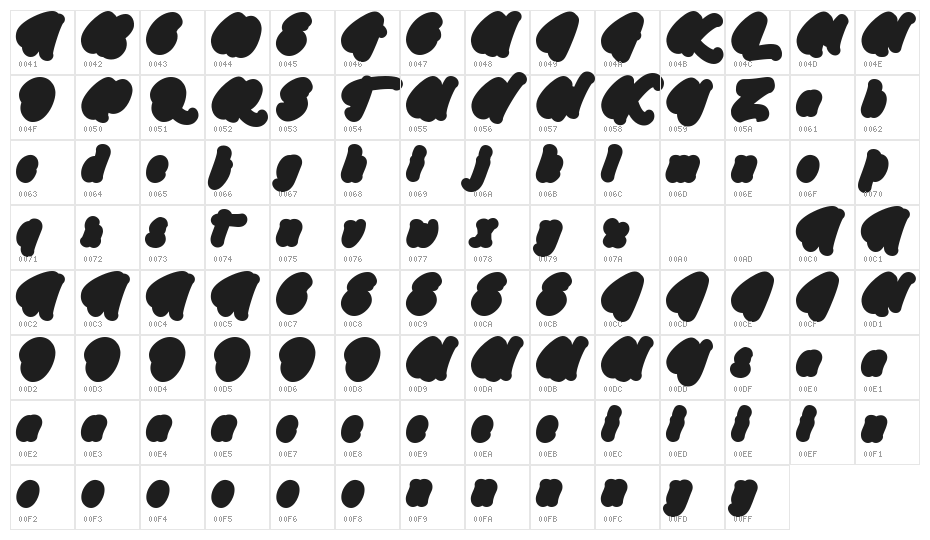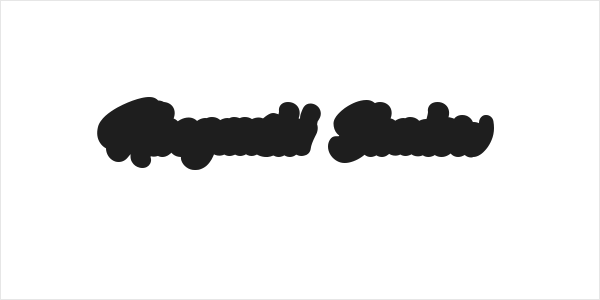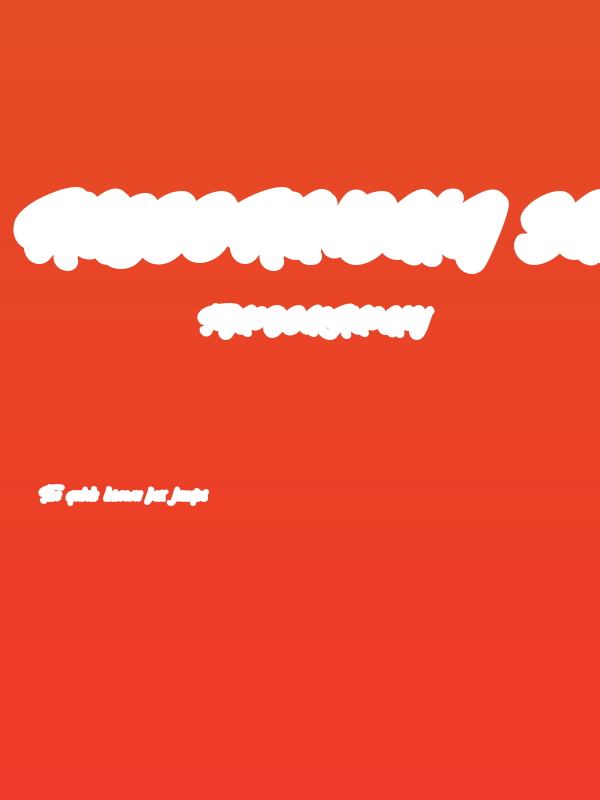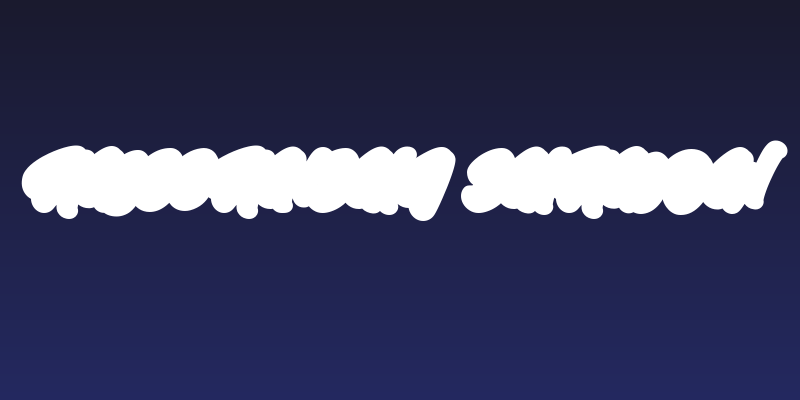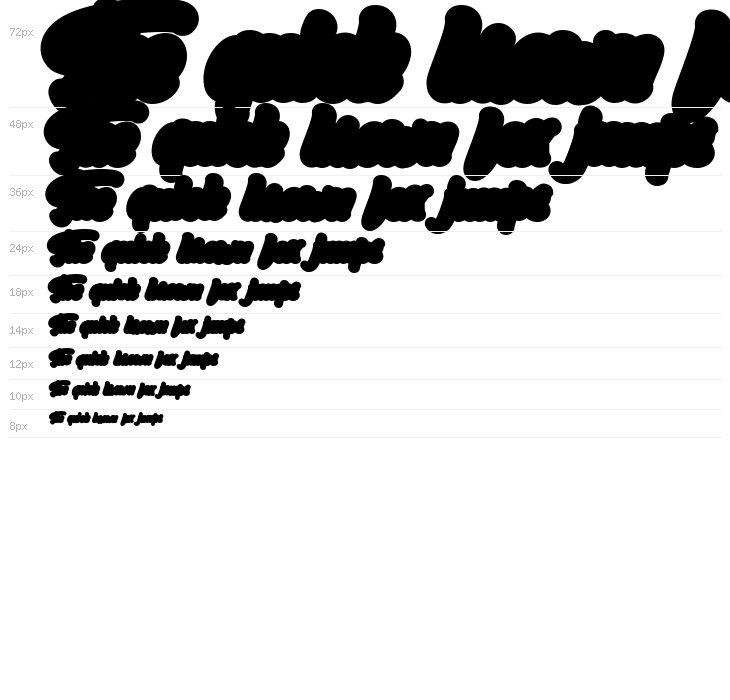
Abeganshi Shadow Font
Abeganshi Shadow Description
This font features a bold and playful design with a shadow effect that adds depth and dimension to each character. The letters are rounded and have a cartoonish appearance, making them stand out with a fun and lively vibe. The shadow creates a three-dimensional look, enhancing the overall visual impact. This style is eye-catching and suitable for projects that require a whimsical and energetic touch. The font's unique characteristics make it ideal for creative and informal applications.
| Overall Style | Playful, Cartoonish |
| Proposed Projects | Ideal for children's books, comic strips, playful branding, and event posters. |